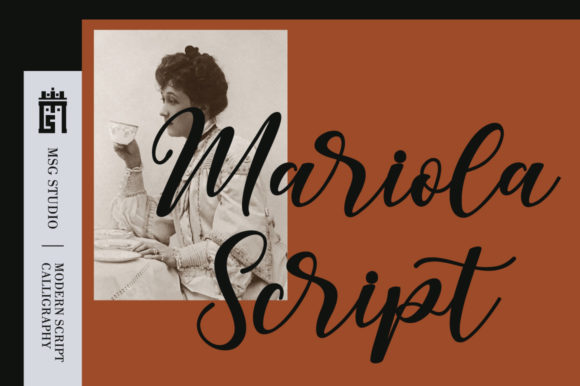
Enter the world of Mariola, a script font that embodies grace and sophistication, designed to bring an air of elegance to your creations. With its meticulously crafted curves and delicate details, Mariola is the perfect choice for those seeking a font that exudes beauty and class.
Step into a realm of timeless aesthetics where Mariola's flowing lines and elegant flourishes dance across your designs, leaving a trail of enchantment. Let your imagination soar as you witness the transformation of ordinary words into exquisite masterpieces, imbued with a touch of old-world charm and modern allure.
Mariola is not just a font; it's an experience that captivates the senses and ignites the creative spirit. Its versatility knows no bounds, allowing you to weave your words into stunning wedding invitations, heartfelt love letters, enchanting branding materials, and captivating social media posts.
With Mariola, your designs will blossom into works of art, captivating your audience with their refined elegance and timeless appeal. Its PUA encoding ensures effortless access to a symphony of glyphs and swashes, empowering you to add intricate details and embellishments that elevate your creations to new heights.
Discover the enchanting world of Mariola and let your creativity flourish. Embrace the beauty of this script font and embark on a journey of self-expression, leaving a lasting impression on all who encounter your designs. Elevate your projects to new heights of sophistication and elegance with Mariola, the font that transforms words into captivating works of art.